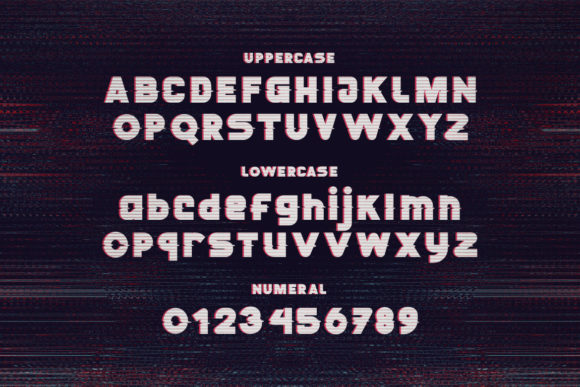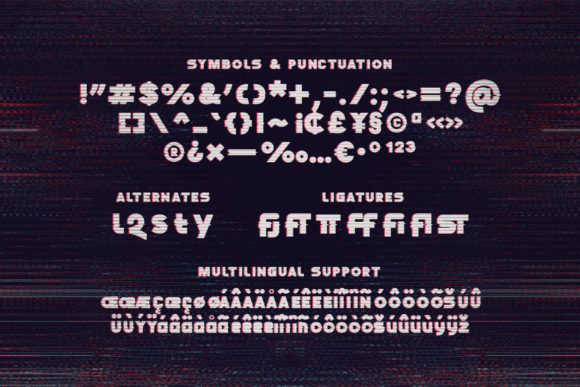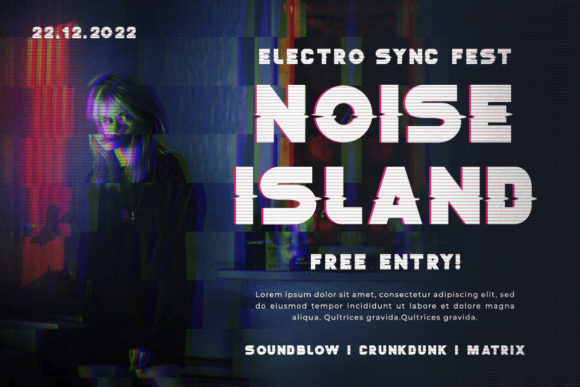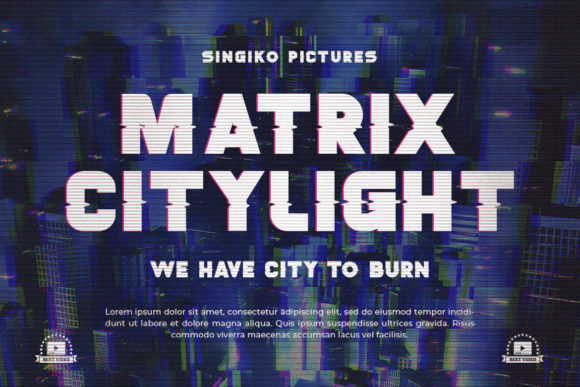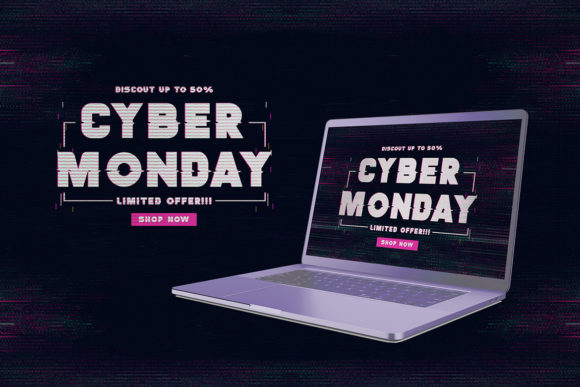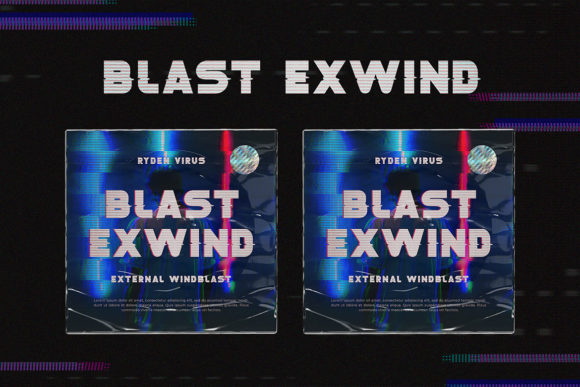
Getting Lost in the Glitch: Introduction to Singiko Font
Have you ever stared at a distorted digital image and wondered what secrets it held? Maybe you’ve found yourself mesmerized by the vibrant, neon colors that seem to pulse with an otherworldly energy. For many artists, this is the magic of the Singiko Font – a typeface that embodies the essence of digital glitch art and adds a touch of modern flair to any creative project.
As a valuable design resource, the Singiko Font is more than just a quirky aesthetic – it’s a powerful tool that can elevate your branding, website, or game title to new heights. With its transparent background and high-quality design, this font is perfect for adding a touch of creative genius to your work.
Singiko Font Key Features
- High-quality, professional font suitable for various creative projects.
- Unique, modern design with a clean and minimalist aesthetic, perfect for branding, logos, and typography-based projects.
Honest Review: Singiko Font
I recently stumbled upon the Singiko Font, and I must say it’s a great addition to my design resource library. One of the things that stood out to me was its high quality, making it perfect for any creative project.
- It has a unique and modern design that can add a touch of elegance to any project.
However, there are some limitations to the Singiko Font that I want to mention: ⚠️
- It’s only available in a limited number of weights, which might not be suitable for projects that require a wide range of font styles.
- The font might not be suitable for small text sizes, as it can become pixelated and difficult to read.
Overall, I’m impressed with the Singiko Font, and I would definitely recommend it to designers who are looking for a high-quality, free design resource for their creative projects.
The Singiko Font is ideal for a variety of creative projects, including:
- Brand identities and logos